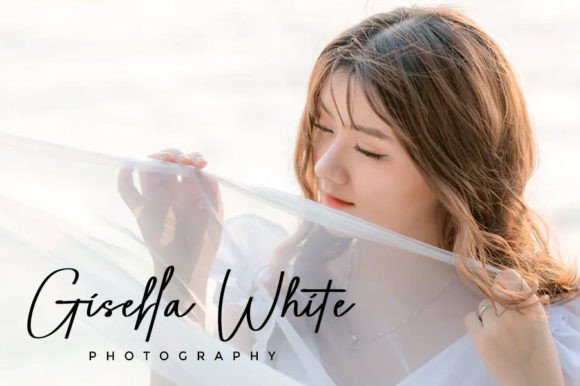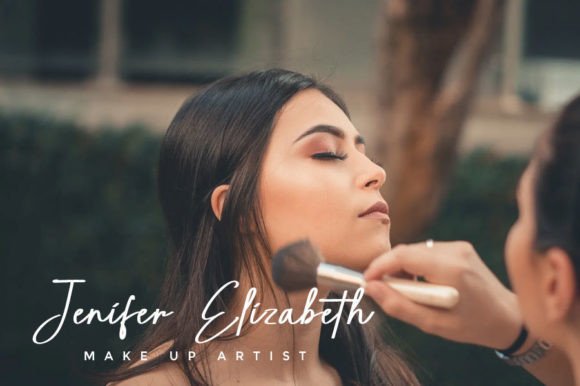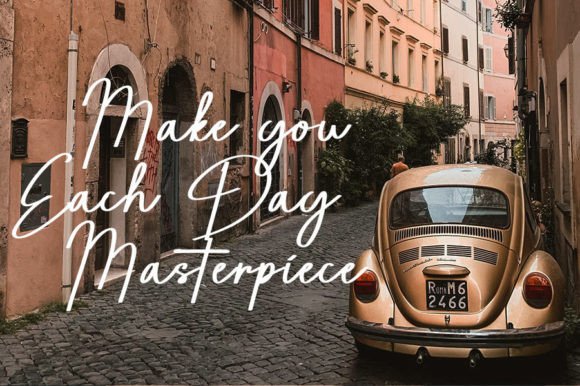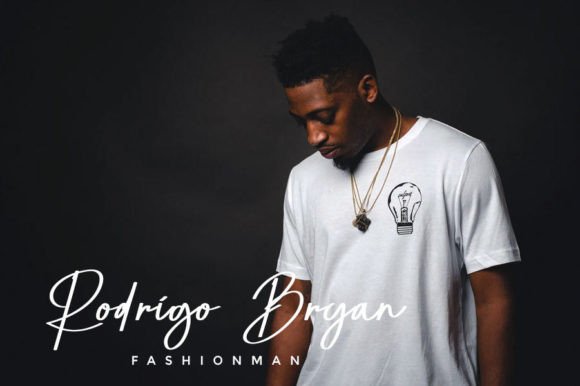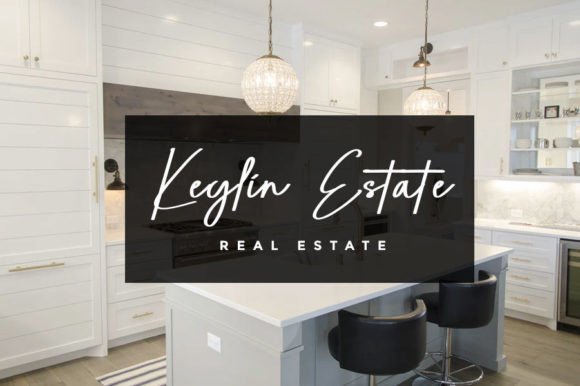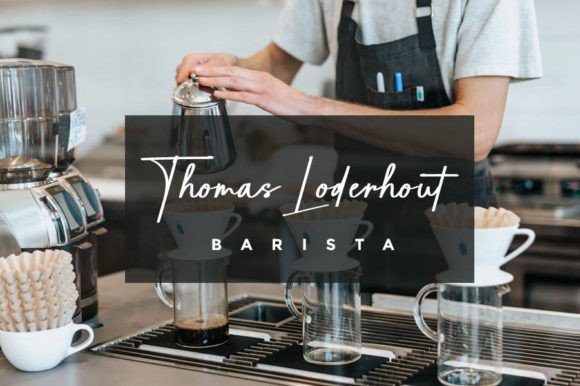
Introduction to Pricillia Font
Pricillia is a signature-style handwritten font.
This font reflects a beautiful and elegant woman which can be interpreted professionally This font looks elegant, classy, readable, stylish, catchy, and easy to use.